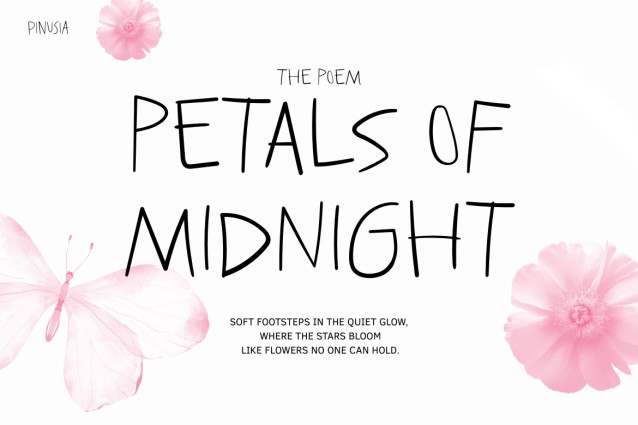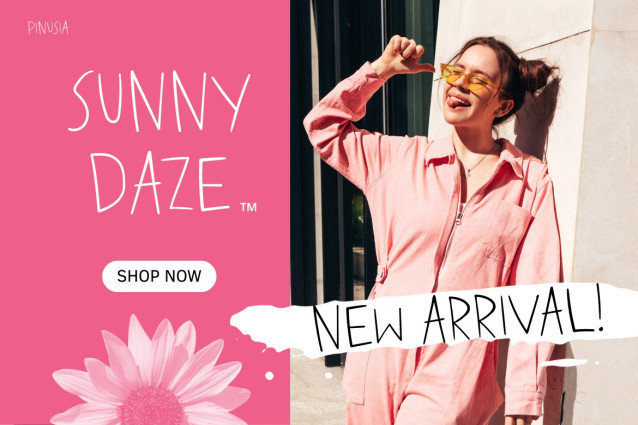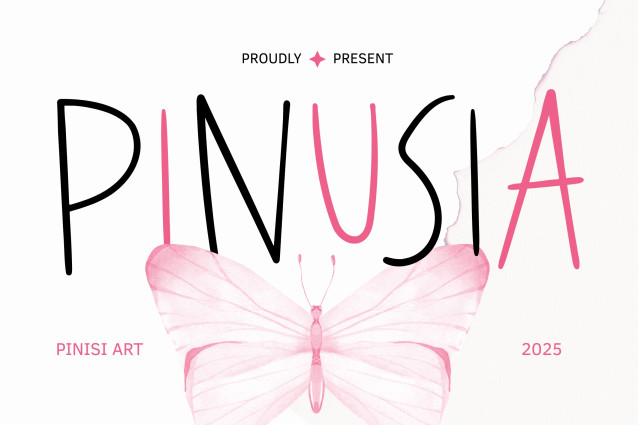
Pinusia Font
Pinusia Font is more than just a font—it is a true reflection of creativity and style. Each stroke feels smooth, organic, and full of life. Because of its handwritten charm, your words instantly look authentic and personal. The playful rhythm also adds warmth and character, making every design feel modern yet approachable. Unlike rigid or mechanical fonts, Pinusia brings emotion, energy, and beauty to your projects.
This font combines aesthetics with usability. It looks elegant but remains easy to read, so it works in branding, social content, or printed materials. In addition, its handcrafted look adapts well to both minimal layouts and bold, expressive designs.